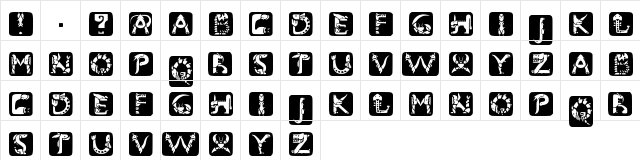
Complete MonsterHunter Medium glyph index. Displaying only characters natively supported by MonsterHunter Medium font.
MonsterHunter is a composed and adaptable typeface that performs quietly and consistently across a wide range of design contexts.